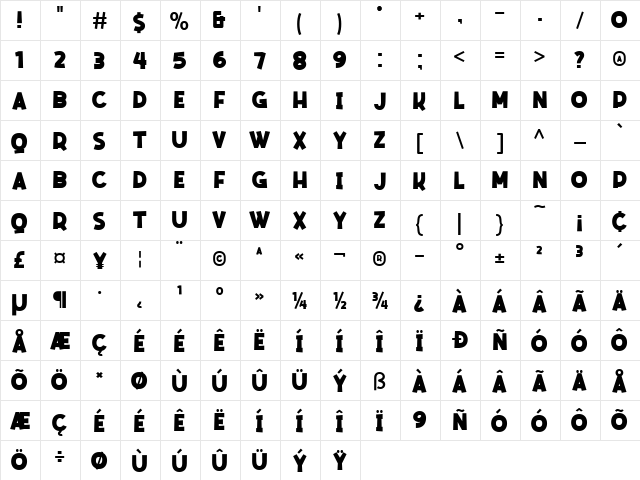
Mencran Regular
Design Context for Mencran Typeface
Mencran is a composed and adaptable typeface that performs quietly and consistently across a wide range of design contexts.
Pro Tip: Use Mencran in both headline and body roles to test its range before committing to a single application.